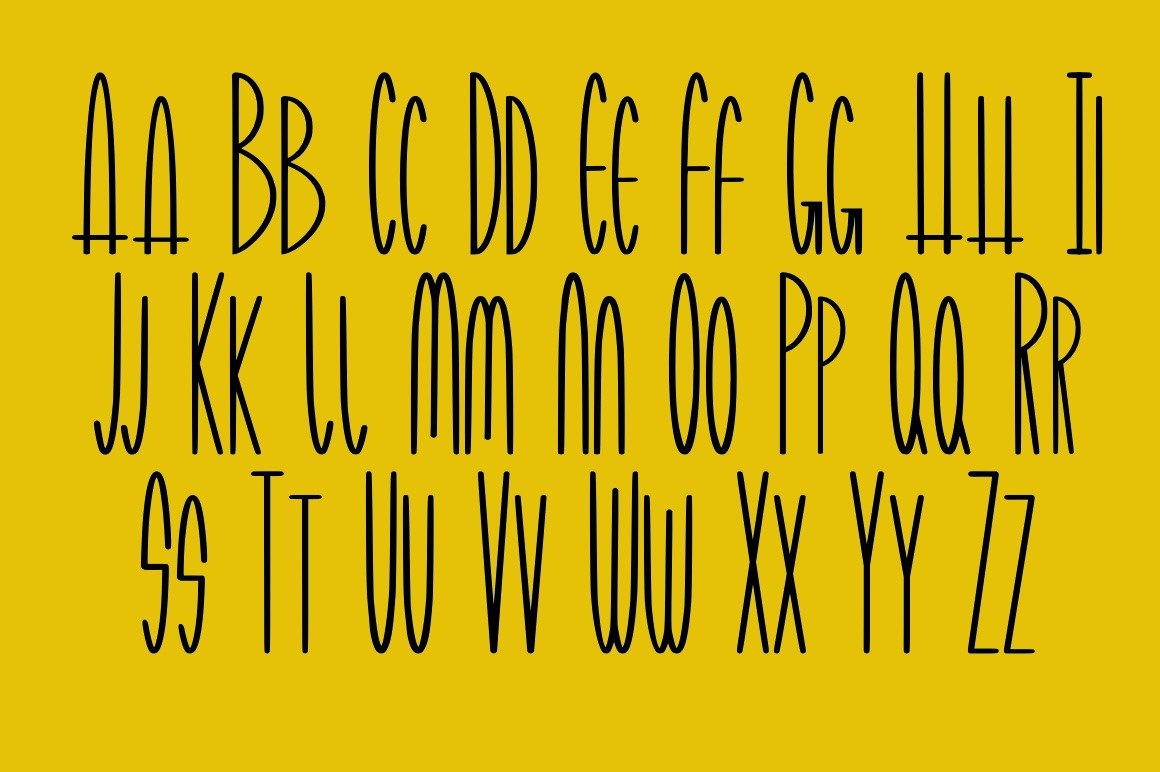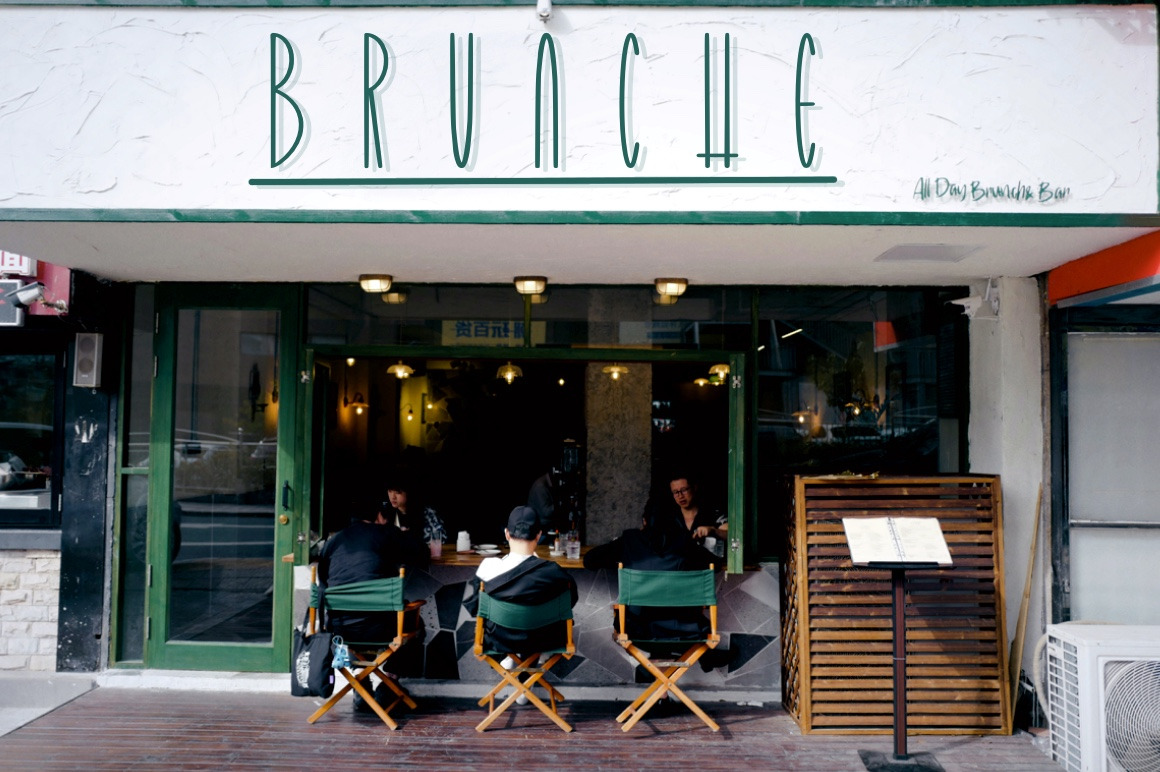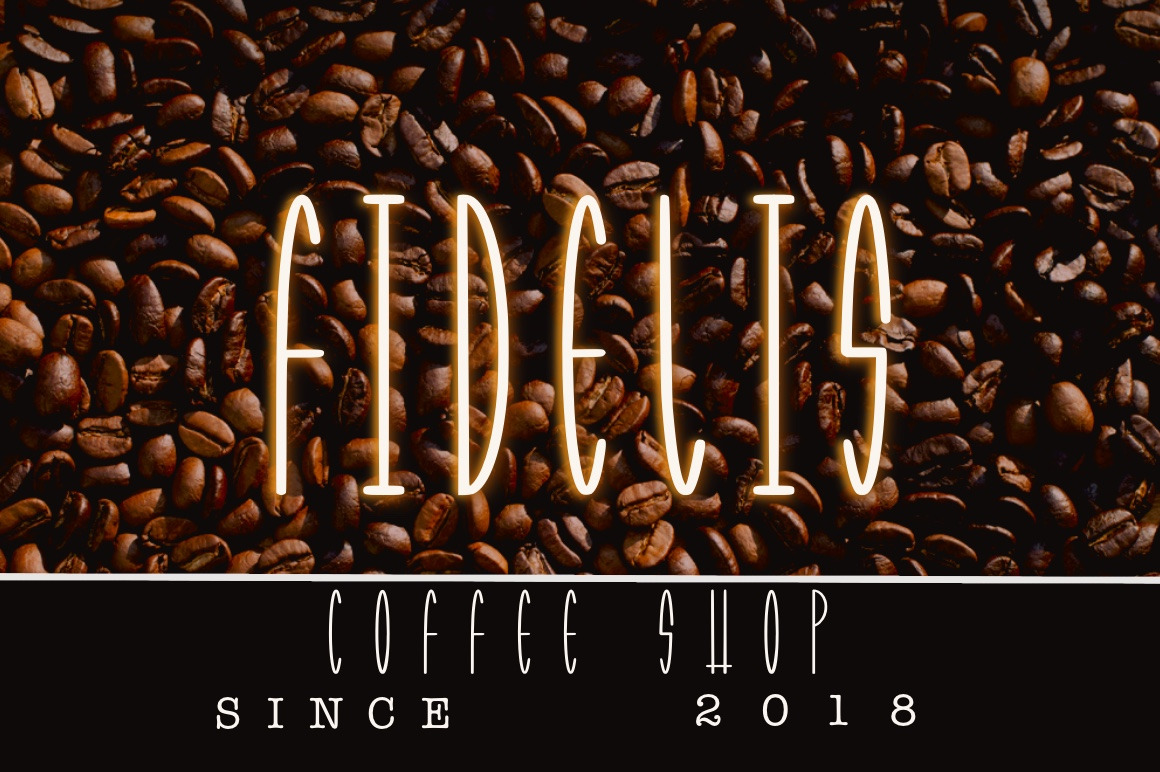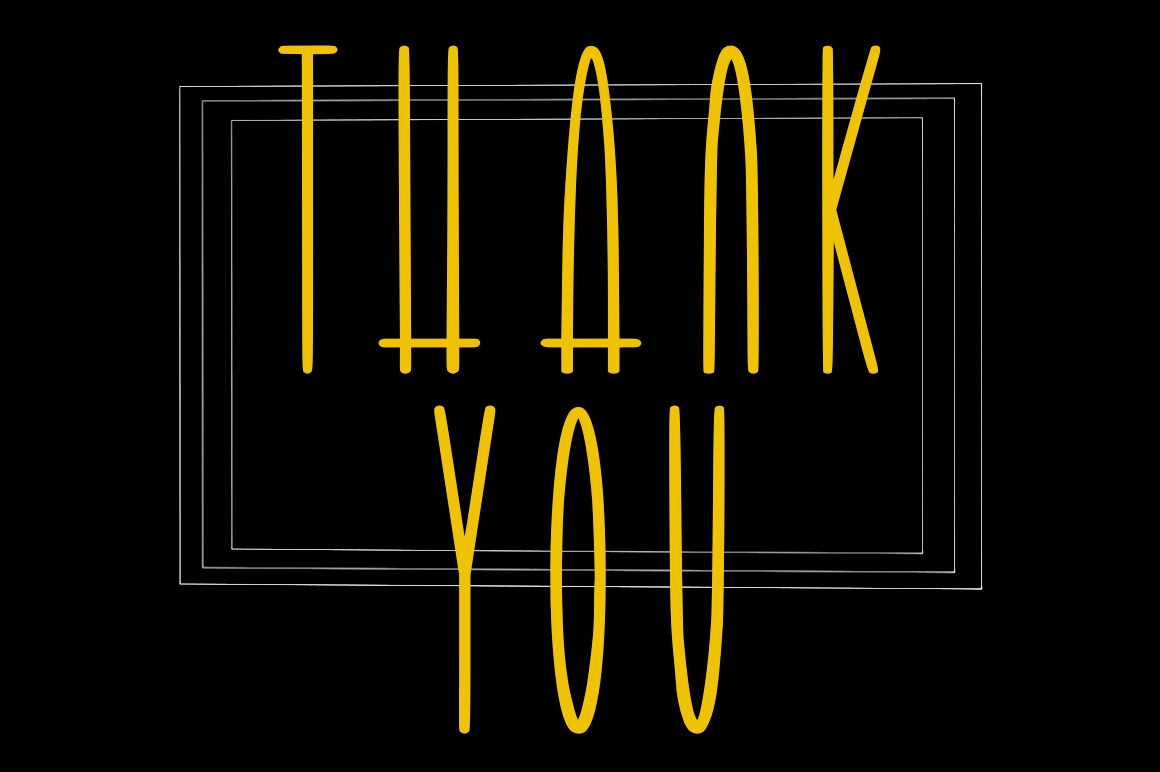
HIghlight Font
Highlight is a unique and interesting display font. A little bit quirky, this font looks incredibly adept on a wide variety of contexts!